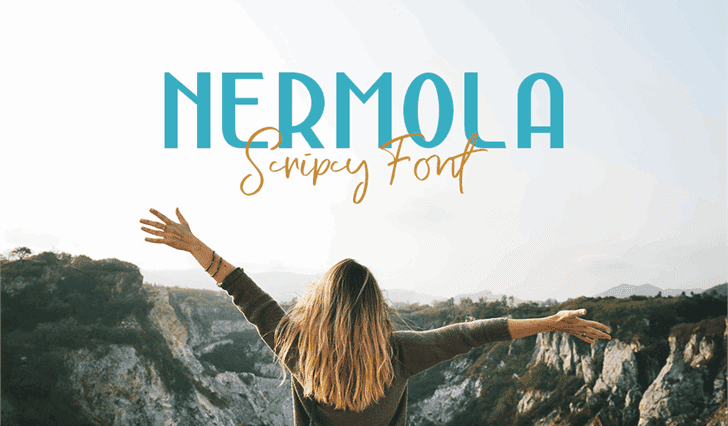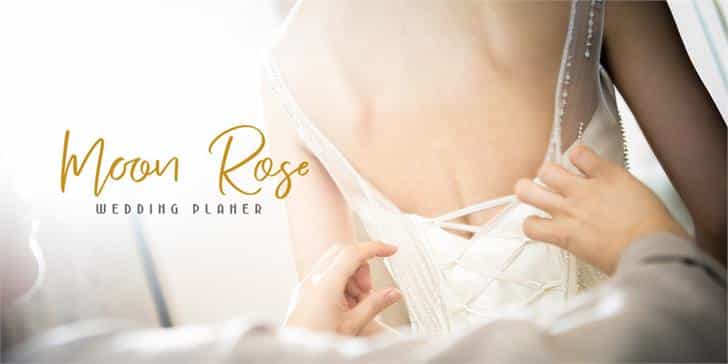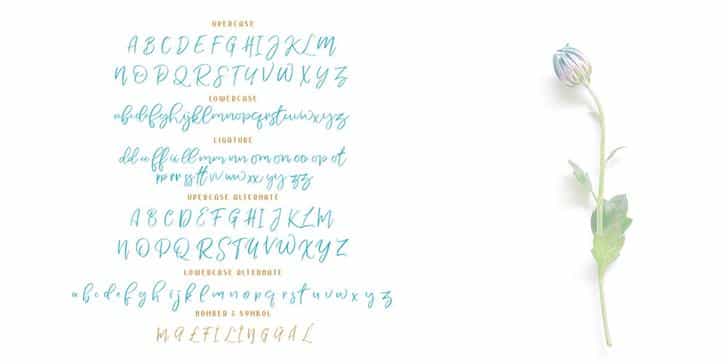
Discover Nermola Script Font, part of the Calligraphy collection—a versatile and unique font perfect for adding a personal touch to your projects. Download it for free and enjoy crafting designs with style, from invitations to social media posts. This font is available exclusively for personal use, giving you the freedom to create without limits. Unlock your creativity with Nermola Script Font today!
Welcome to the NERMOLA Scripcy Font designed by alitdesign. This will make us also want to get into the font duo since it has started to trend in the creativemarket. The two fonts that we introduce are sans serif and our distinctive script font.